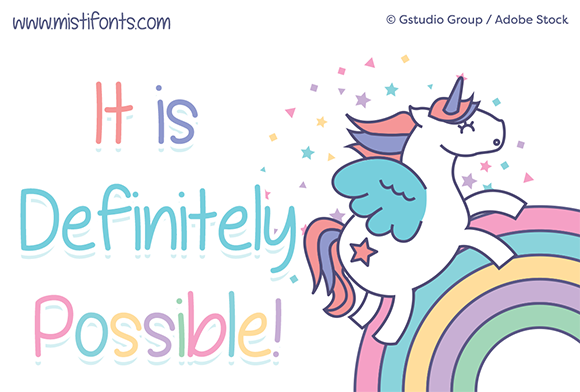
It is Definitely Possible Font
About It is Definitely Possible Font
It is Definitely Possible is a super cool handwritten font that is perfect for your design and craft projects!